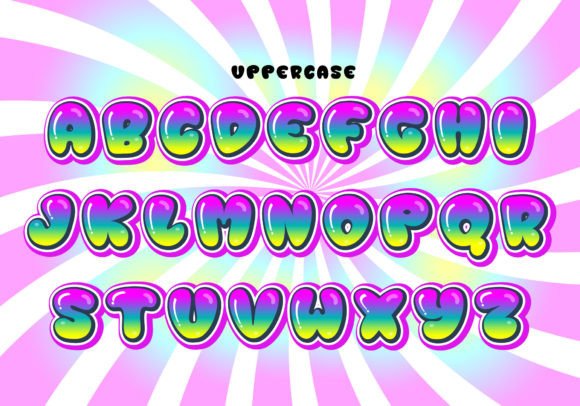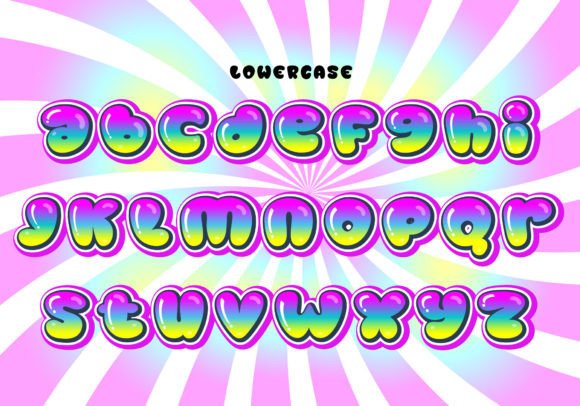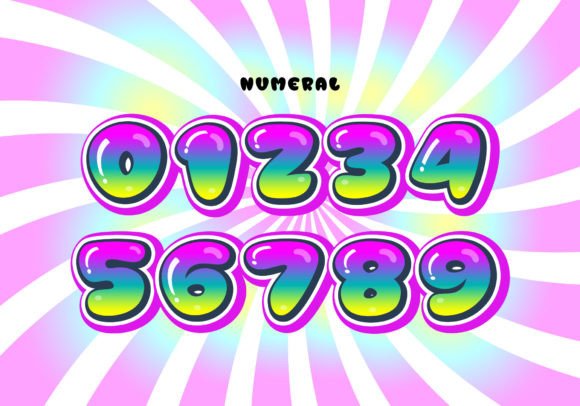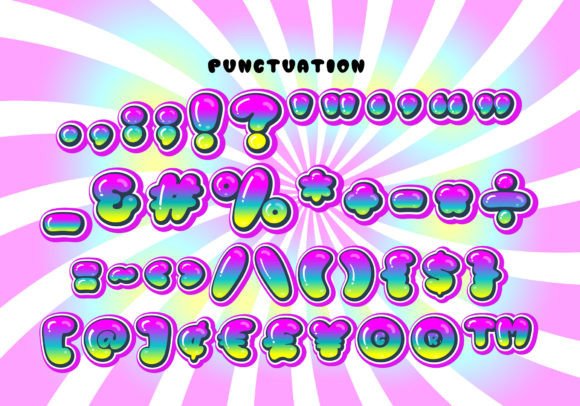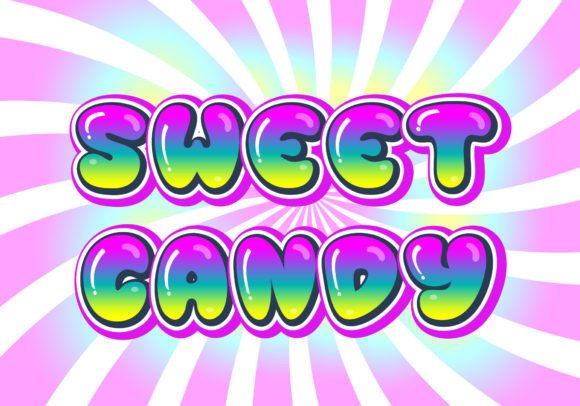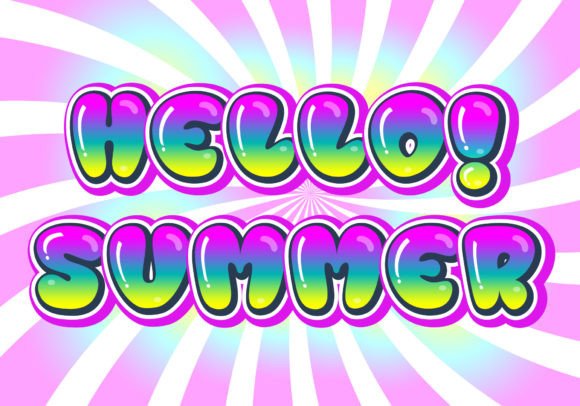
The Unforgettable Bubble Font: Adding a Pop of Color to Your Designs
I’ll never forget the time I was working on a project for a children’s party invitation. My client wanted something fun, playful, and eye-catching. As I scrolled through font after font, nothing seemed quite right. That was until I stumbled upon the Bubble font. Its vibrant colors and chunky letters immediately caught my attention, and I knew I had found the perfect fit. In this article, we’ll dive into the world of Bubble font, exploring its features, uses, and alternatives.
A First Impression: What Makes Bubble Font So Special?
Bubble is an attractive and groovy color font that is both colorful and bulky, with letters that pack a punch and demand attention. The letters are well-crafted, with a mix of bright hues and chunky shapes that create a sense of playfulness and energy. Its bold and vibrant appearance makes it perfect for logos, packaging, and designs that require a touch of excitement and personality.
What I Love About Bubble Font ✨
- ✅ Vibrant colors: The font’s bright hues add a pop of color to any design.
- ✅ Chunky letters: The bold, chunky shapes make the font easy to read and perfect for headlines.
- ✅ Playful feel: The font’s playful energy makes it ideal for designs that require a touch of whimsy.
- ⚠️ Limited use cases: While the font is perfect for certain designs, it may not be suitable for more formal or professional projects.
- ⚠️ Color consistency: Depending on the platform used, the font’s colors may not always display consistently.
The Story Behind Bubble Font: Designer Inspiration
The Bubble font was designed with one goal in mind: to create a font that would add a pop of color and energy to any design. The designer, inspired by the playful feel of children’s books and toys, set out to create a font that would bring a sense of whimsy and fun to the world of design. With its bold, chunky letters and vibrant colors, the Bubble font is sure to bring a smile to anyone’s face.
Q: What is the Bubble font best used for?
A: The Bubble font is best used for designs that require a touch of playfulness and energy, such as logos, packaging, and children’s party invitations.
Q: Is the Bubble font easy to read?
A: Yes, the Bubble font is easy to read, thanks to its bold, chunky letters.